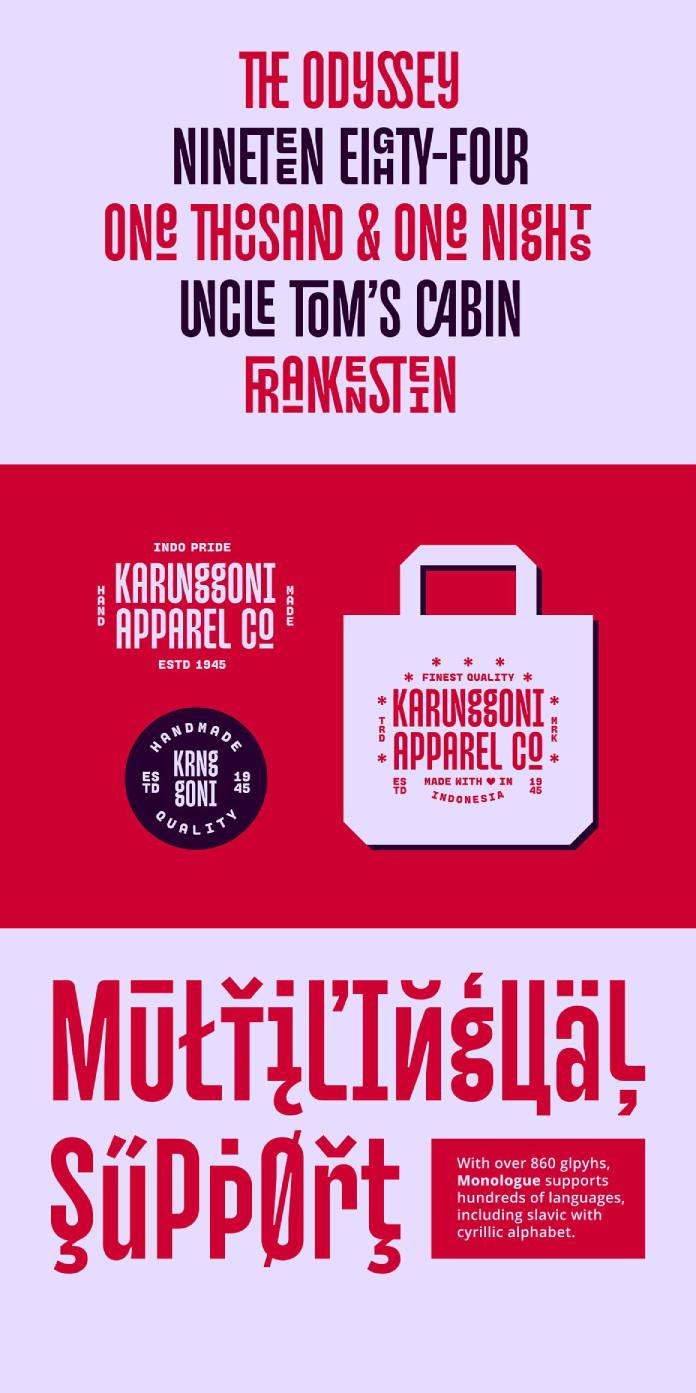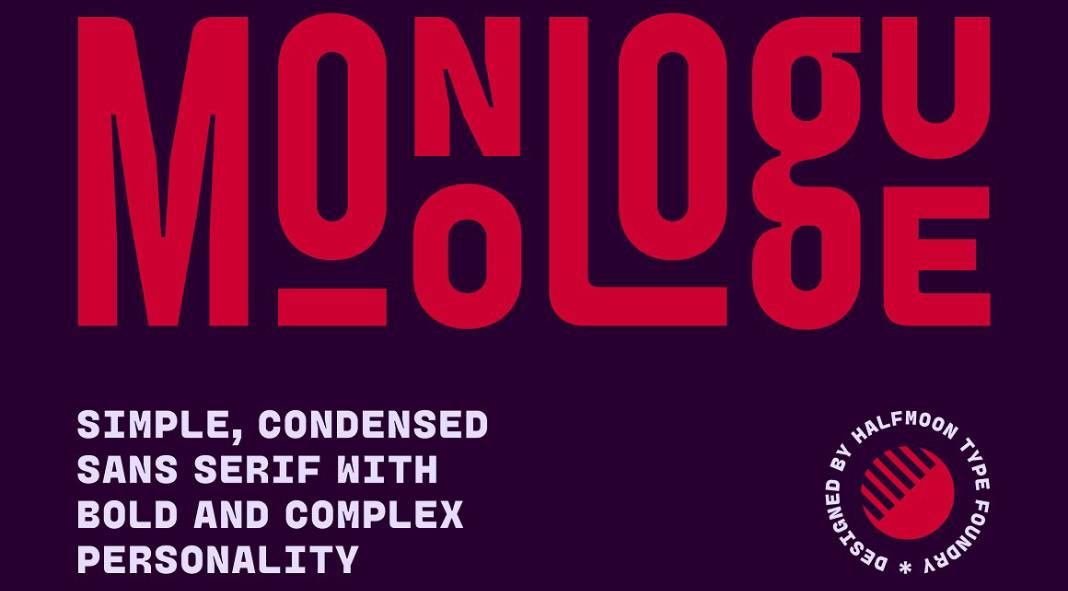
If you are looking for a simple, condensed sans serif font with a bold and complex personality, the Monologue typeface might be perfect for you.
Designed by Halfmoon Type, Monologue is a powerful yet condensed sans serif font with a bold and complex personality. No matter the text size, this typeface will always bring your content to life! With its vast array of ligatures, alternates, and other typographic features, you can make any project unique – from headlines to magazines or logos for websites and billboards. Explore all that the MONOLOGUE font has in store for you today!